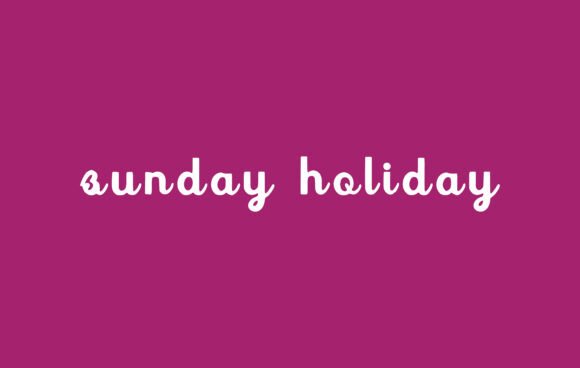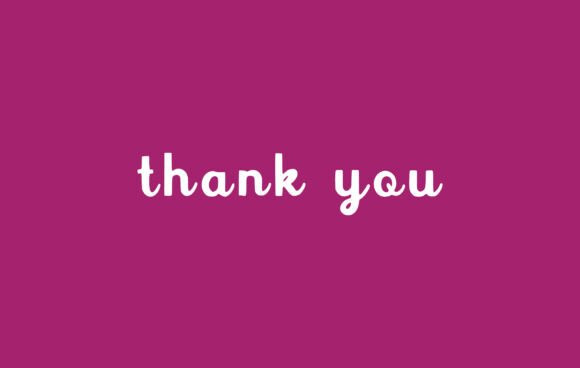
Unlocking the Power of Atomic Bold Font: Elevate Your Designs with a Romantic Touch
In the world of typography, fonts play a crucial role in conveying the tone and personality of a design. For designers and crafters looking to add a touch of romance and elegance to their projects, Atomic Bold font is an exceptional choice. This authentic handwritten font is expertly designed to capture the hearts of audiences and take creative ideas to new heights.
The Unique Charm of Atomic Bold Font
Atomic Bold font boasts a distinctive romantic touch that sets it apart from other fonts. Its authentic handwritten style gives it a personal and intimate feel, making it perfect for designs that require a sense of warmth and connection. Whether you’re working on magazine headlines, social media graphics, branding materials, wedding invitations, or cards, Atomic Bold font is sure to leave a lasting impression.
Versatility and Legibility
One of the standout features of Atomic Bold font is its exceptional legibility. This font is designed to look great not only as a title but also as body text, making it incredibly versatile. Designers can use Atomic Bold font to create stunning headlines, while also using it for longer blocks of text without sacrificing readability. This flexibility makes it an ideal choice for a wide range of design projects.
Ideal Applications for Atomic Bold Font
Atomic Bold font’s unique blend of style and legibility makes it suitable for various design applications. Some of the ideal uses for this font include:
- Magazine Headlines: Grab the attention of your readers with bold and eye-catching headlines that exude elegance and sophistication.
- Social Media Graphics: Elevate your social media presence with stunning graphics that showcase your brand’s personality and style.
- Branding: Create a lasting impression with Atomic Bold font, perfect for logos, business cards, and other branding materials.
- Wedding Invitations: Add a touch of romance and whimsy to your wedding invitations, save-the-date cards, and other wedding stationery.
- Cards: Create beautiful and heartfelt cards for special occasions, such as birthdays, anniversaries, and holidays.
Why Choose Atomic Bold Font?
With so many fonts available, why choose Atomic Bold font for your designs? Here are a few compelling reasons:
- Unique Style: Atomic Bold font offers a distinctive and authentic handwritten style that will set your designs apart from the rest.
- High Legibility: This font is designed to be easy to read, making it perfect for both titles and body text.
- Versatility: Use Atomic Bold font for a wide range of design projects, from magazines and social media to branding and wedding invitations.
- Elegance: Add a touch of romance and sophistication to your designs with Atomic Bold font’s elegant and refined style.
Atomic Bold font is a true gem in the world of typography. Its unique blend of romance, elegance, and legibility makes it an exceptional choice for designers and crafters looking to elevate their designs. Whether you’re working on a magazine headline, social media graphic, or wedding invitation, Atomic Bold font is sure to impress. With its versatility and timeless style, this font is sure to become a favorite in your design arsenal.